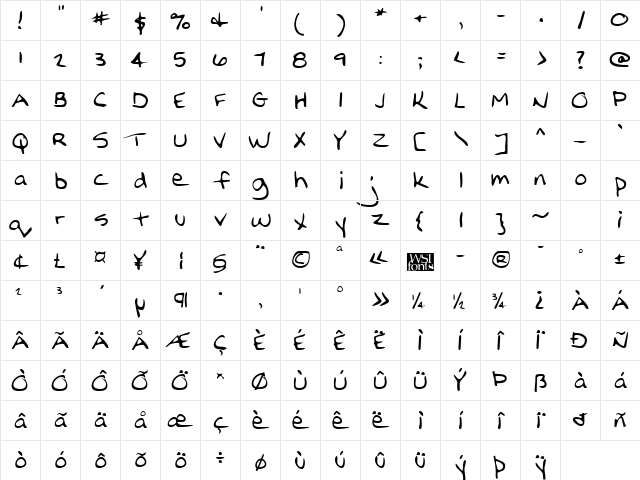
NellysHand Regular
Design Context for NellysHand Typeface
NellysHand flows with the natural rhythm of handwritten lettering, making it ideal for designs that call for warmth and personal expression.
Font Pairing: Combine NellysHand with a simple geometric sans for maximum contrast — the tension between flowing curves and clean structure is a classic typographic pairing.
Pro Tip: Use NellysHand for short runs of text — names, titles, or taglines. Extended body copy in script faces tires the eye quickly.